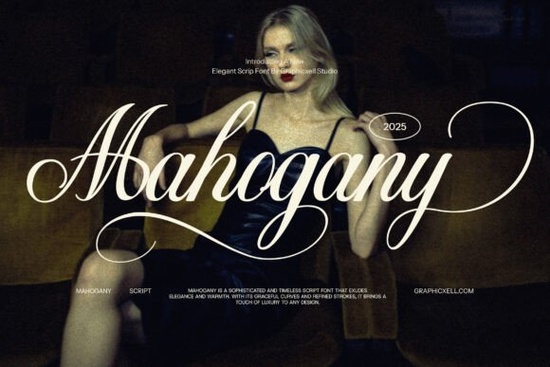
If you're looking for a script font that feels both timeless and fresh, Mahogany Font is a standout choice. This wedding-themed calligraphy typeface brings soft elegance to any project whether you’re designing invitations, branding materials, or social media graphics. It’s not just another pretty font; it’s thoughtfully crafted with real design use in mind.
What Makes Mahogany Font Special?
Unlike basic script fonts, Mahogany Font stands out with its flowing strokes and delicate curves. The letterforms mimic hand-drawn calligraphy but with consistent spacing and clean lines perfect for creating polished designs without the hassle of handwriting each word. You’ll notice how each character feels intentional, from the gentle loops to the subtle flourishes that add personality without overwhelming your layout.
The font includes multiple stylistic alternates and ligatures, so you can easily switch between different versions of letters (like the “a” or “y”) to keep your design feeling unique. This is especially helpful if you’re making a series of wedding stationery pieces each one can have a slightly different feel while still belonging to the same elegant family.
Where Can You Use Mahogany Font?
This versatile script works across many creative projects:
- Wedding invites – From save-the-date cards to reception signage, Mahogany adds a romantic touch.
- Branding & logos – Great for luxury boutiques, bridal shops, or high-end product labels.
- Social media graphics – Perfect for styled posts, quotes, or announcements with a refined look.
- Print-on-demand items – Ideal for mugs, prints, and journals with a personal, handmade vibe.
How Does It Compare to Other Script Fonts?
If you’ve explored similar options like Sister Font, Beyond Perfection, or Bulky Font, you’ll appreciate how Mahogany strikes a balance between delicate detail and readability. While some scripts are overly ornate or hard to read at small sizes, Mahogany keeps things graceful yet clear especially important when used in body text or on digital screens.
For those who love bold, expressive styles, Creative Market Font offers a different energy but Mahogany leans more into classic romance and subtlety. If you’re drawn to something warm and inviting, this might be your next favorite.
Why Designers Choose Mahogany Font
One reason this font gets repeated use is because it feels authentic. It doesn’t shout for attention it whispers charm instead. That makes it ideal for brands aiming for sophistication without pretense. Whether you’re a small business owner, a crafty hobbyist, or a designer building client work, Mahogany helps your message land with grace.
Use lowercase letters with strategic capitalization to enhance flow. Pair Mahogany with a clean sans-serif font (like Lato or Montserrat) for contrast and better readability. Avoid using all caps unless you’re going for a dramatic statement otherwise, the script shines most in natural, conversational text.